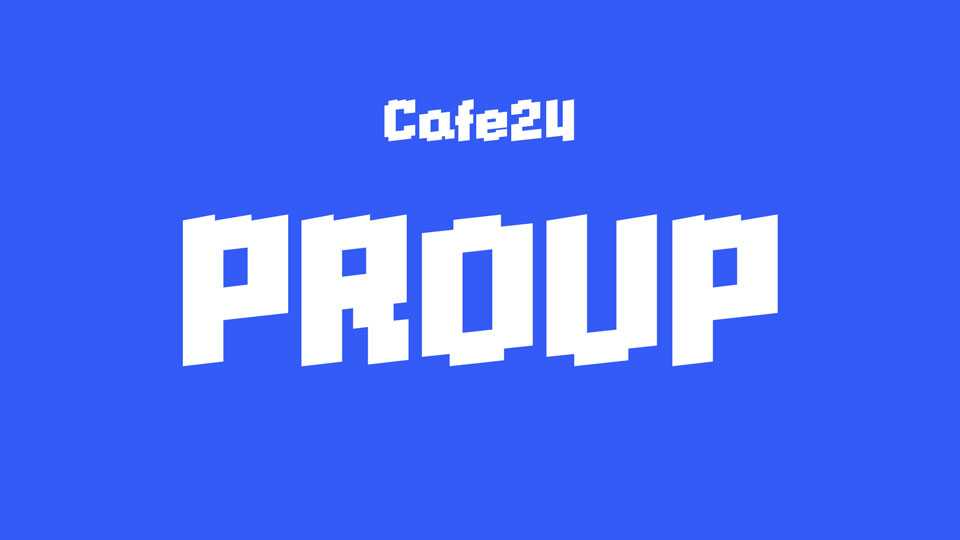
Download Cafe24 ProUp font, a bold and striking display typeface with a modern, geometric aesthetic with its clean, sharp lines and precise letterforms.